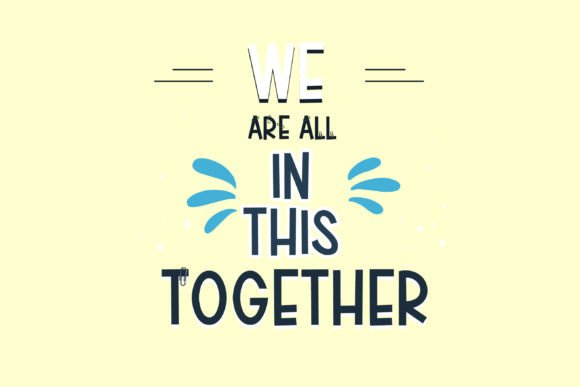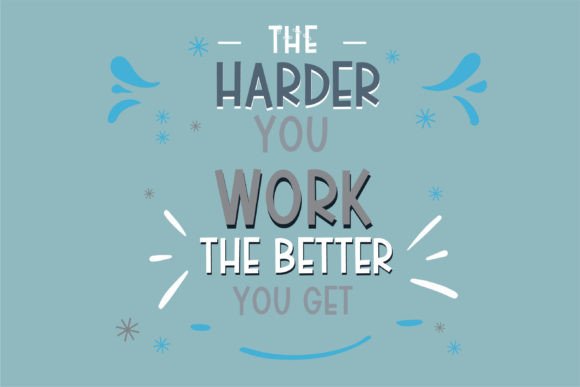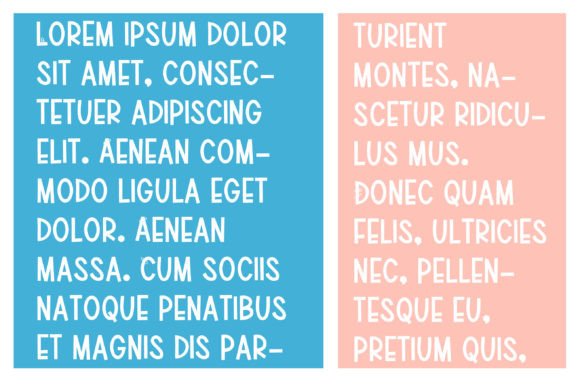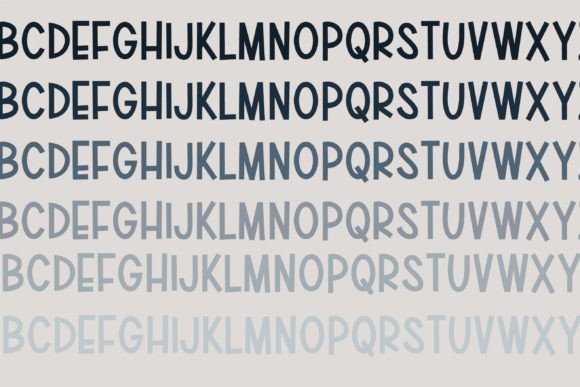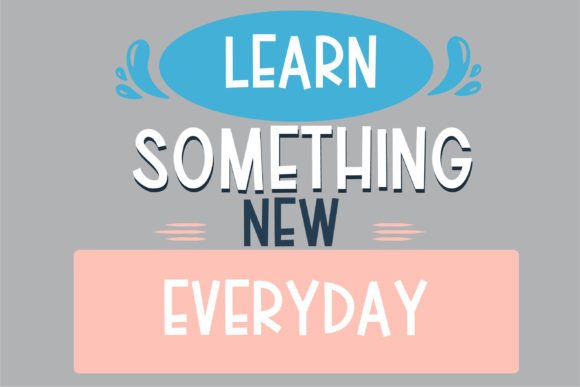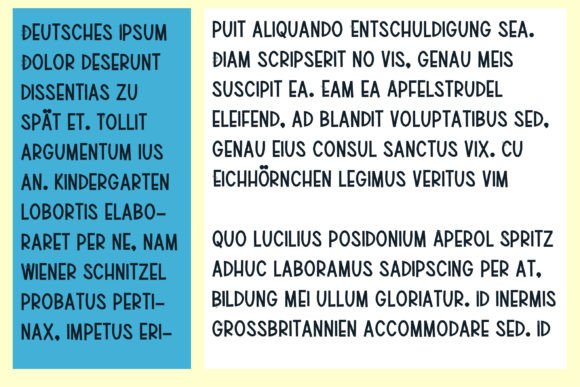
Introducing Clipped Font: The Perfect Blocky Sans Serif for Your Creative Projects
Are you a designer, crafter, or planner enthusiast looking for a unique and functional font to elevate your creative projects? Look no further than Clipped Font, a blocky sans serif display font that’s perfect for planners, memos, and back-to-school projects. What sets Clipped Font apart is its innovative design, featuring paper clips on the uppercase letters that add a touch of whimsy and functionality to your designs.
What is Clipped Font?
Clipped Font is a carefully crafted blocky sans serif display font designed to bring a sense of nostalgia and playfulness to your creative projects. Its distinctive feature – paper clips on the uppercase letters – makes it an instant standout. Whether you’re creating a planner, memo, or any back-to-school project, Clipped Font is sure to capture attention and add a personal touch.
Key Features of Clipped Font
- Blocky Sans Serif Design: Clipped Font boasts a bold, blocky sans serif design that’s both modern and retro, making it versatile for various creative projects.
- Paper Clips on Uppercase Letters: The unique paper clip design on the uppercase letters adds a creative and functional element, perfect for themes related to organization, planning, or education.
- Perfect for Planners and Memos: The clear and readable design of Clipped Font makes it ideal for planners, journals, memos, and other written materials where clarity and style are paramount.
- Great for Back-to-School Projects: Add a fun and educational twist to your back-to-school projects with Clipped Font, making it perfect for DIY crafts, educational materials, and more.
Why Choose Clipped Font?
Choosing Clipped Font for your creative projects comes with numerous benefits:
- Uniqueness: Stand out from the crowd with a font that’s not only stylish but also tells a story through its design.
- Versatility: From digital designs to print materials, Clipped Font adapts seamlessly, ensuring your projects look great in any medium.
- Engagement: The playful design of Clipped Font is sure to engage your audience, whether they’re students, colleagues, or clients.
Using Clipped Font in Your Projects
Incorporating Clipped Font into your workflow is straightforward:
- Choose Your Project: Whether it’s a digital planner, a school project, or a memo, select the project you want to enhance with Clipped Font.
- Design with Flair: Use Clipped Font for headings, titles, or any text you want to highlight. Experiment with different sizes and colors to match your project’s theme.
To make the most of Clipped Font, consider these tips:
- Mix and Match: Combine Clipped Font with other fonts for a layered look. A simple sans serif for body text paired with Clipped Font for headings can create a visually appealing contrast.
- Play with Colors: Don’t be afraid to experiment with colors. The bold design of Clipped Font works well with bright, vibrant colors that can add a pop of fun to your projects.
- Embrace the Theme: For planners and educational materials, use the paper clip element to your advantage. You can incorporate illustrations or graphics of paper clips, notebooks, or school supplies to reinforce the theme.
Clipped Font is more than just a font – it’s a creative tool that can transform your planners, memos, and back-to-school projects into engaging, stylish, and functional pieces. Its unique design, versatility, and ease of use make it a valuable addition to any designer’s or crafter’s toolkit. So, why settle for ordinary when you can add a clip of creativity to your work with Clipped Font?